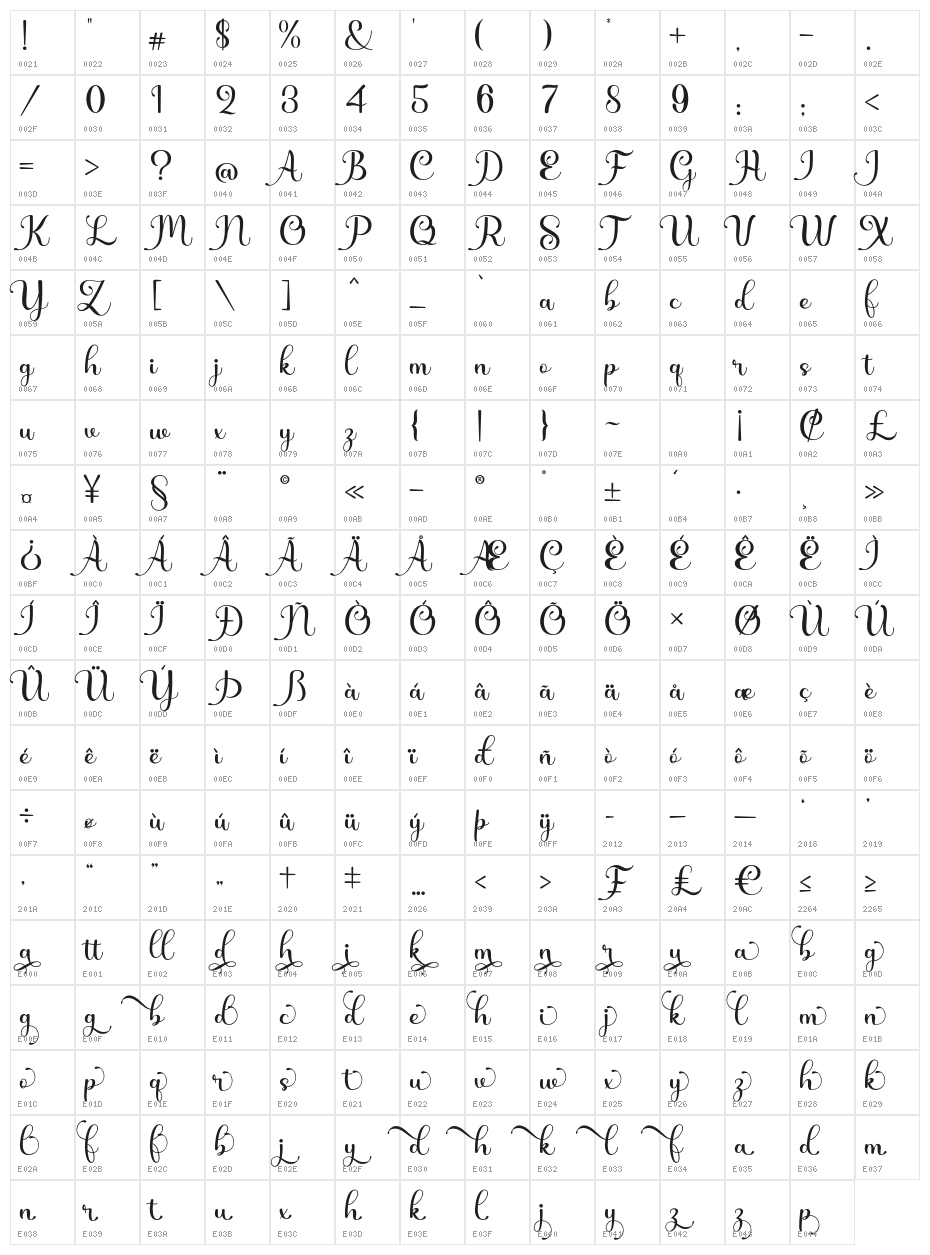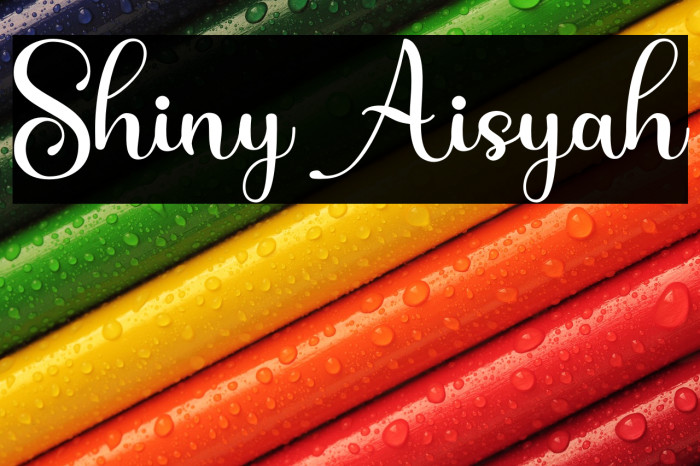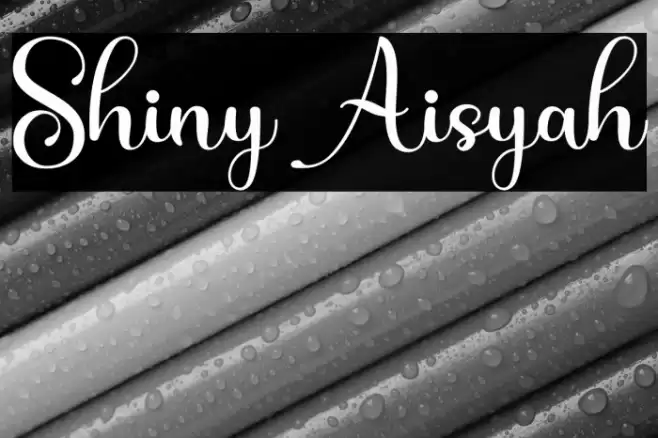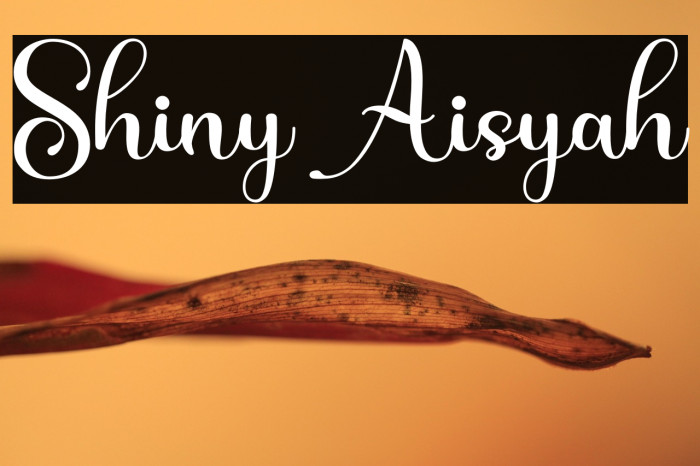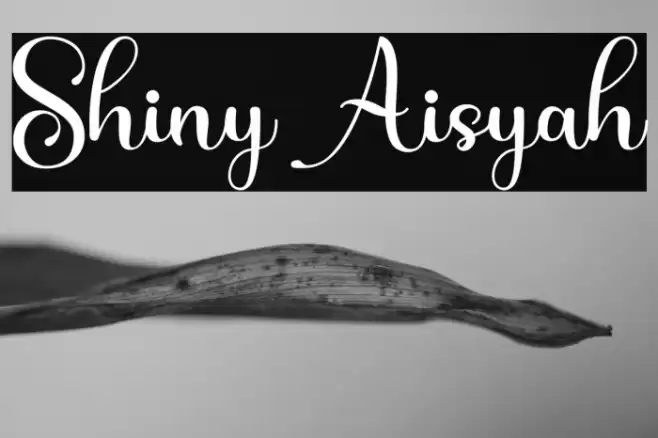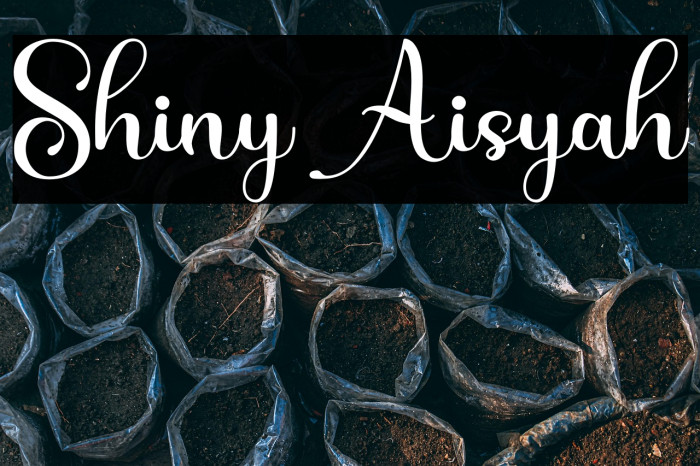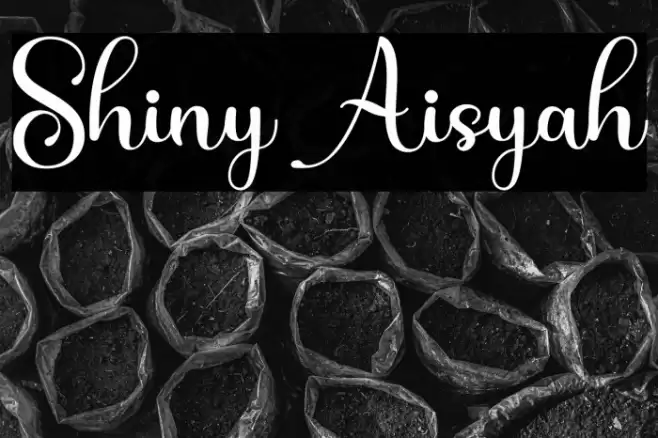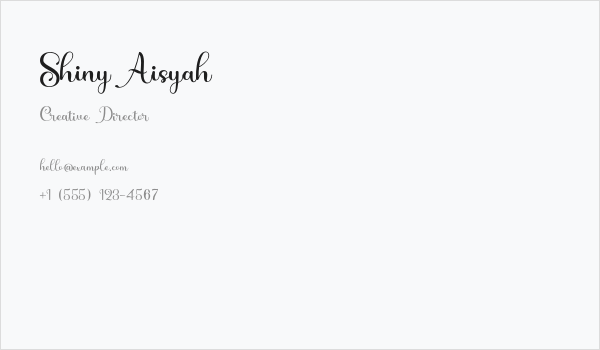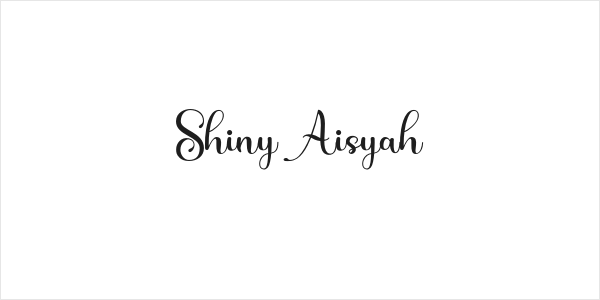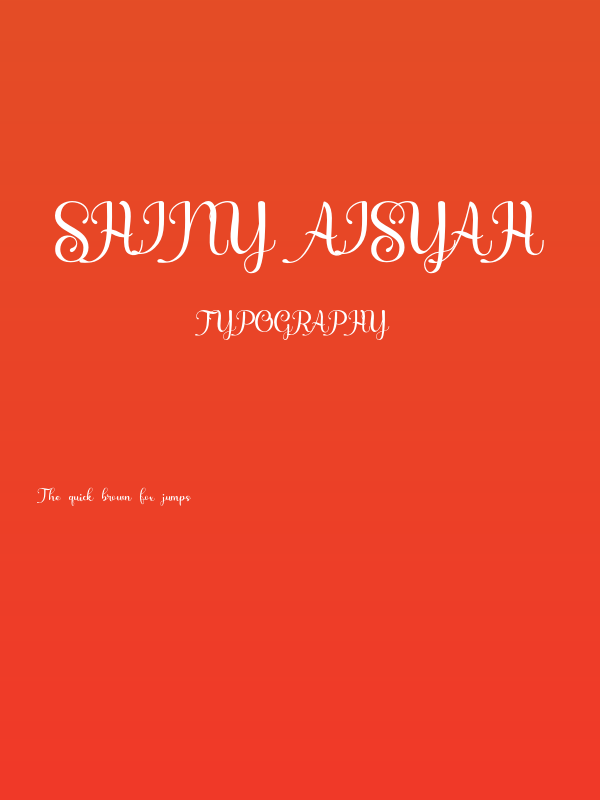
Shiny Aisyah Font
Shiny Aisyah Description
This font features an elegant and flowing script style, characterized by its smooth, cursive letterforms. The uppercase letters are ornate with delicate swirls and loops, giving a sense of sophistication and grace. The lowercase letters maintain a consistent flow, complementing the uppercase with their rounded and connected strokes. Numbers and special characters are designed to match the overall aesthetic, with a playful yet refined appearance. The font's design is both decorative and functional, making it suitable for a variety of creative applications.
| Use Case | Logos, Invitations, Decorative Text |
| Proposed Projects | Ideal for wedding invitations, greeting cards, branding projects, and elegant logo designs. |